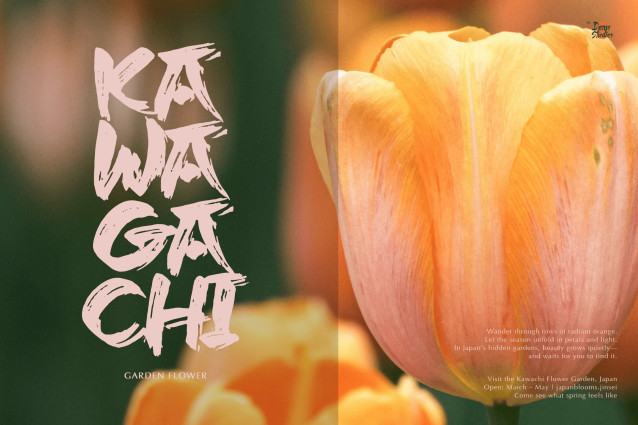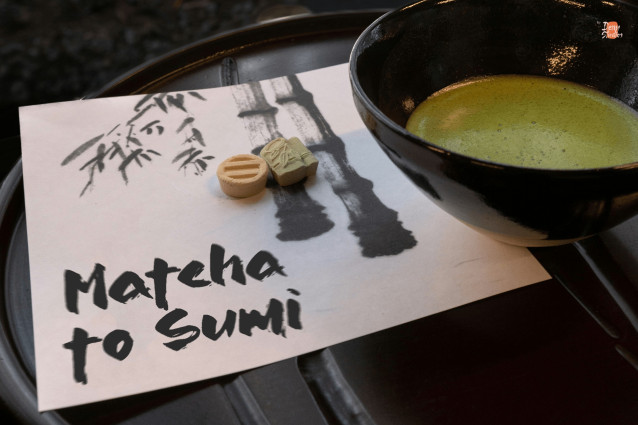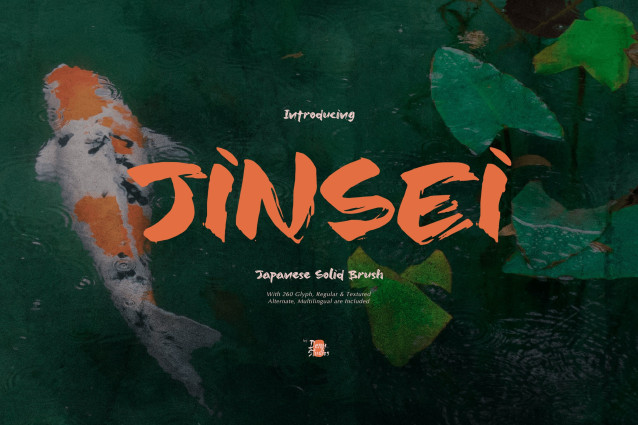
Jinsei Brush Font
Jinsei Brush Font | Japanese Solid Brush, from Denustudios, suitable for any projects such as: logos, branding projects, homeware designs, product packaging, mugs, quotes, posters, shopping bags, t-shirts, book covers, name card, invitation cards, greeting cards, label, photography, watermark, special events, and all your other lovely projects that need a Japanese Solid Brush taste.